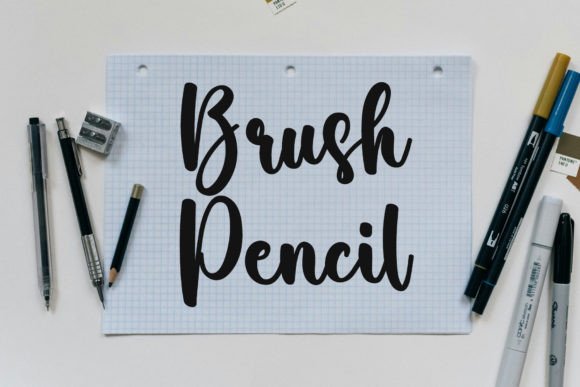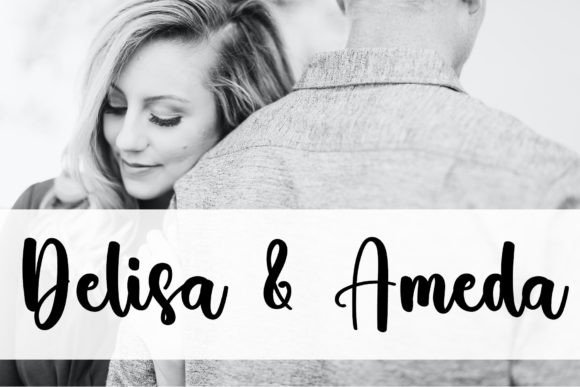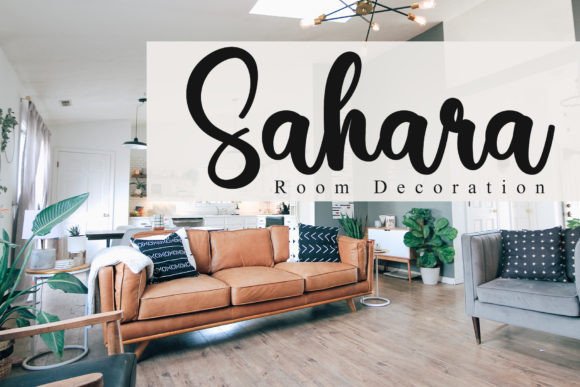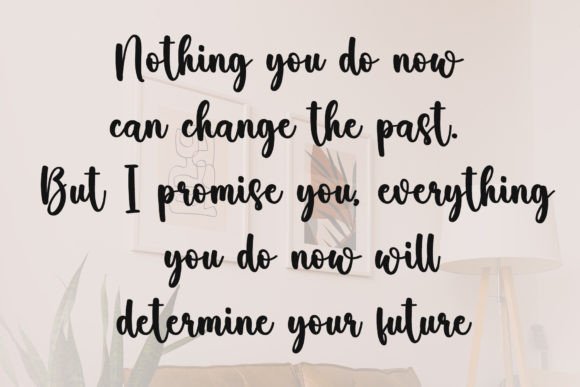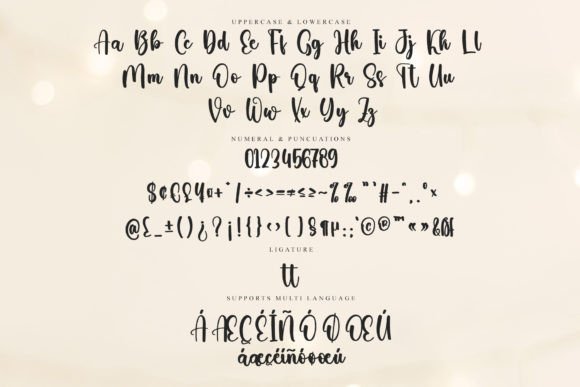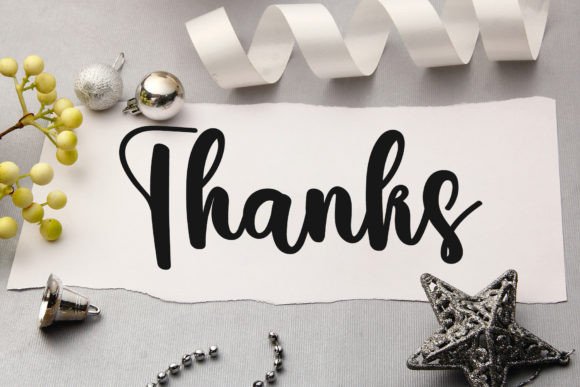
Introduction to Silky Font
As a designer, have you ever found yourself staring at a blank page, searching for the perfect font to bring your creative project to life? The frustration of scrolling through endless options, only to settle for something that’s just ‘okay’ can be overwhelming. But what if you stumbled upon a font that not only elevates your design but also leaves a lasting impression on your audience?
Enter the Silky Font, a stunning handwritten font that’s set to revolutionize your design workflow. With its timeless classic calligraphy-inspired design, this font is perfect for adding a touch of sophistication to your creative projects. Whether you’re working on a branding project or a social media campaign, Silky Font is sure to impress.
Designed with precision and care, Silky Font is a valuable resource for designers who demand high-quality fonts that make a statement. With its transparent background and elegant lines, this font is a must-have for any design enthusiast. And the best part? It’s available for free download, making it an accessible design resource for creatives of all levels.
Key Features of Silky Font
- High-quality design resource with a transparent background, ideal for creative projects.
- Features a unique, elegant design that is perfect for use in logos, branding, and other visual identity elements.
- Available in a single size, making it easy to use across a variety of design projects and applications.
- Perfect for designers looking for a high-quality, free design resource to elevate their creative projects.
Honest Review: Silky Font
I recently had the chance to work with Silky Font, a popular design resource that’s been making waves in the creative community. As a designer, I’m always on the lookout for high-quality fonts that can elevate my projects and bring my vision to life.
- ✨ High-quality design: Silky Font has a sleek, modern aesthetic that’s perfect for a wide range of creative projects.
- ✨ Transparent background: The transparent background option is a game-changer for designers who need to overlay text on images or other design elements.
- ⚠️ Limited customization options: While the font itself is beautiful, I found that the customization options are a bit limited, which can make it difficult to achieve the exact look you want.
- ⚠️ Not suitable for all designs: Silky Font is a bit too modern for some projects, so you may need to use it judiciously to avoid clashing with your design style.
Overall, I’m impressed with Silky Font’s potential as a design resource. While it may not be perfect for every project, it’s definitely worth considering for your next creative endeavor. With a bit of creative experimentation, you can unlock its full potential and take your designs to the next level.
Silky Font
Tips for Getting the Most Out of Silky Font
To get the most out of Silky Font, use it with a transparent background to create a clean and modern design. You can also experiment with different font sizes and colors to find the perfect combination for your project.
Silky Font is perfect for graphic designers, digital artists, and anyone looking to add a touch of elegance to their creative project. It’s also ideal for presentations, documents, and social media graphics that require a high-quality design resource.